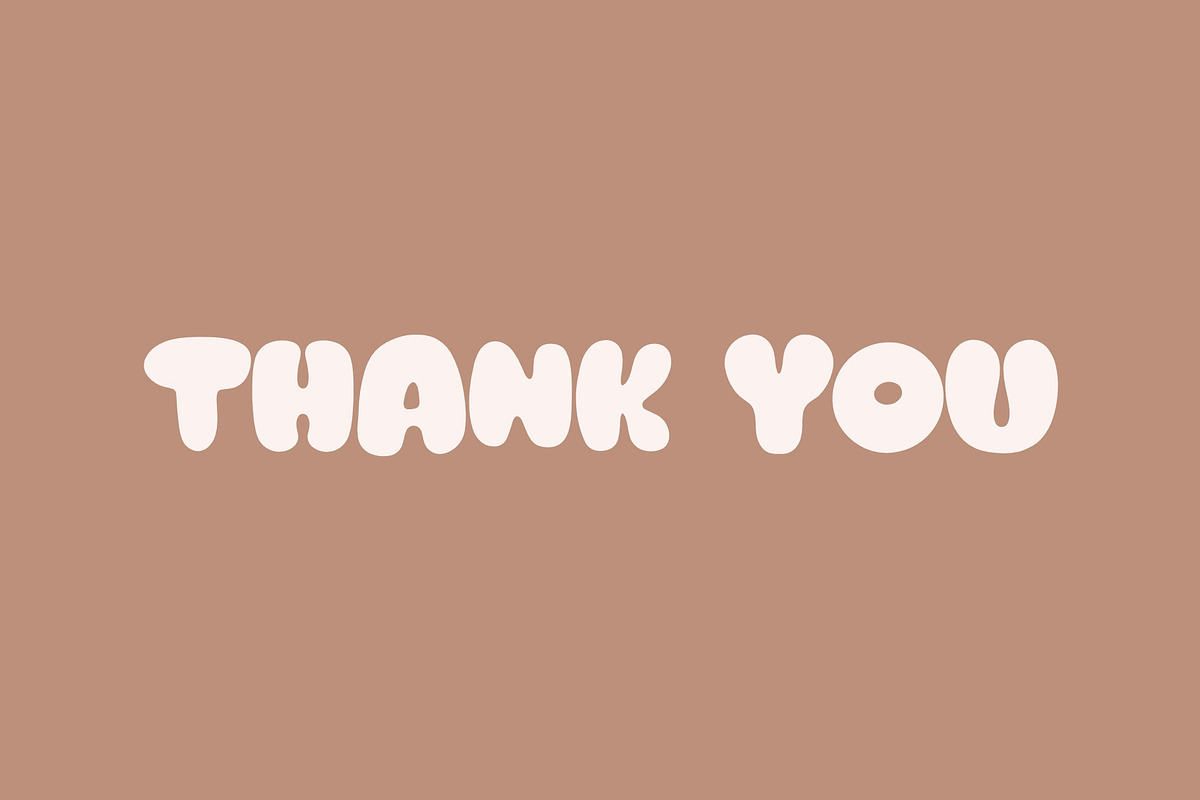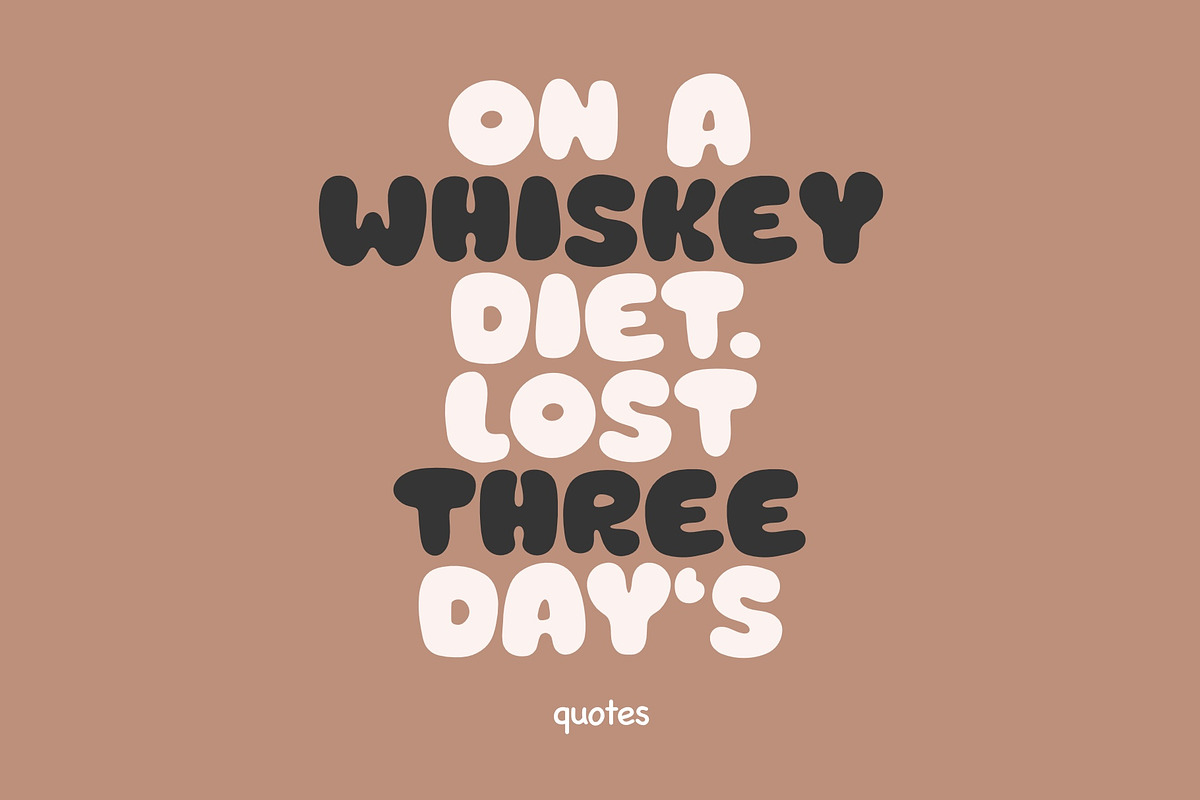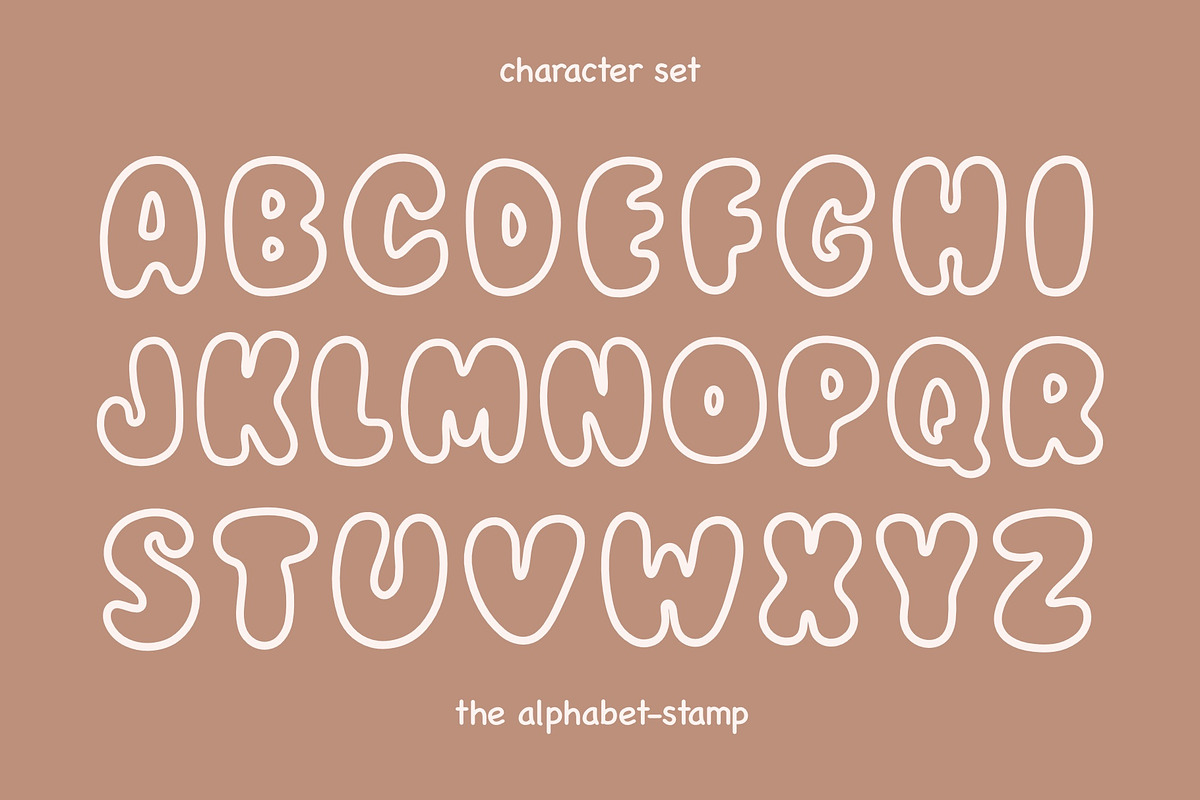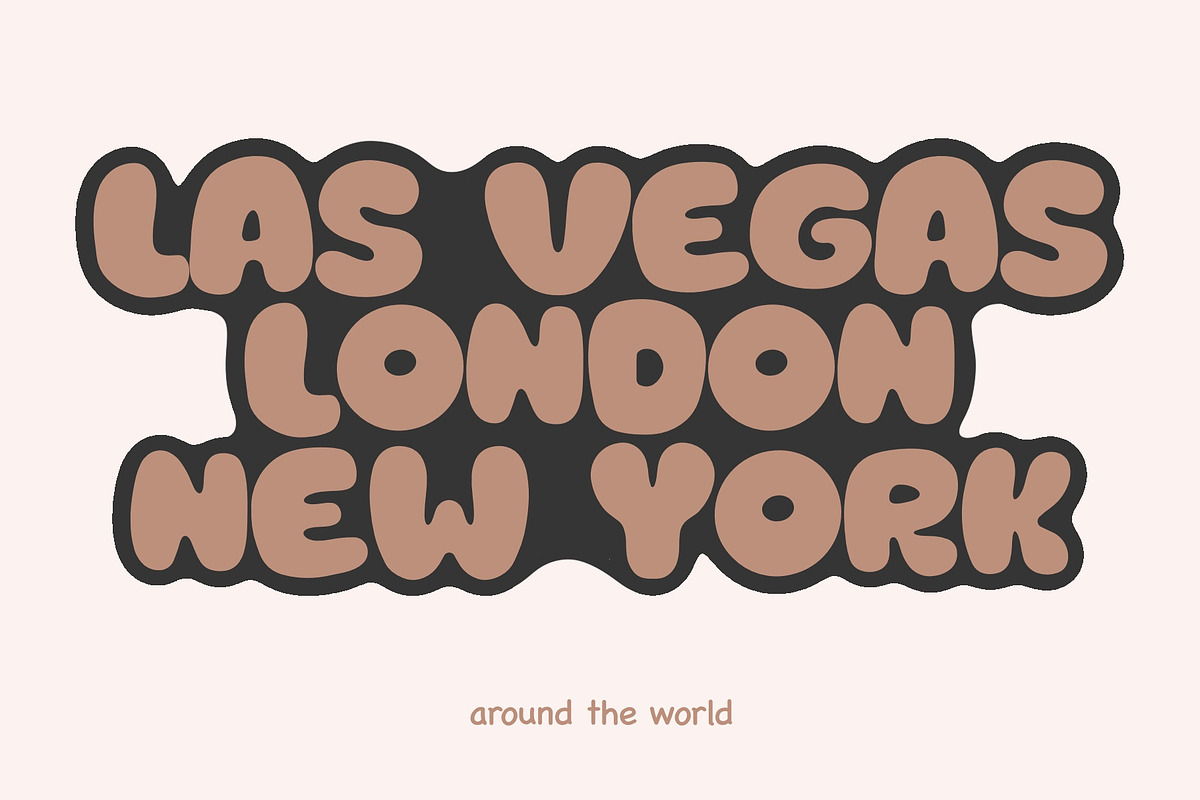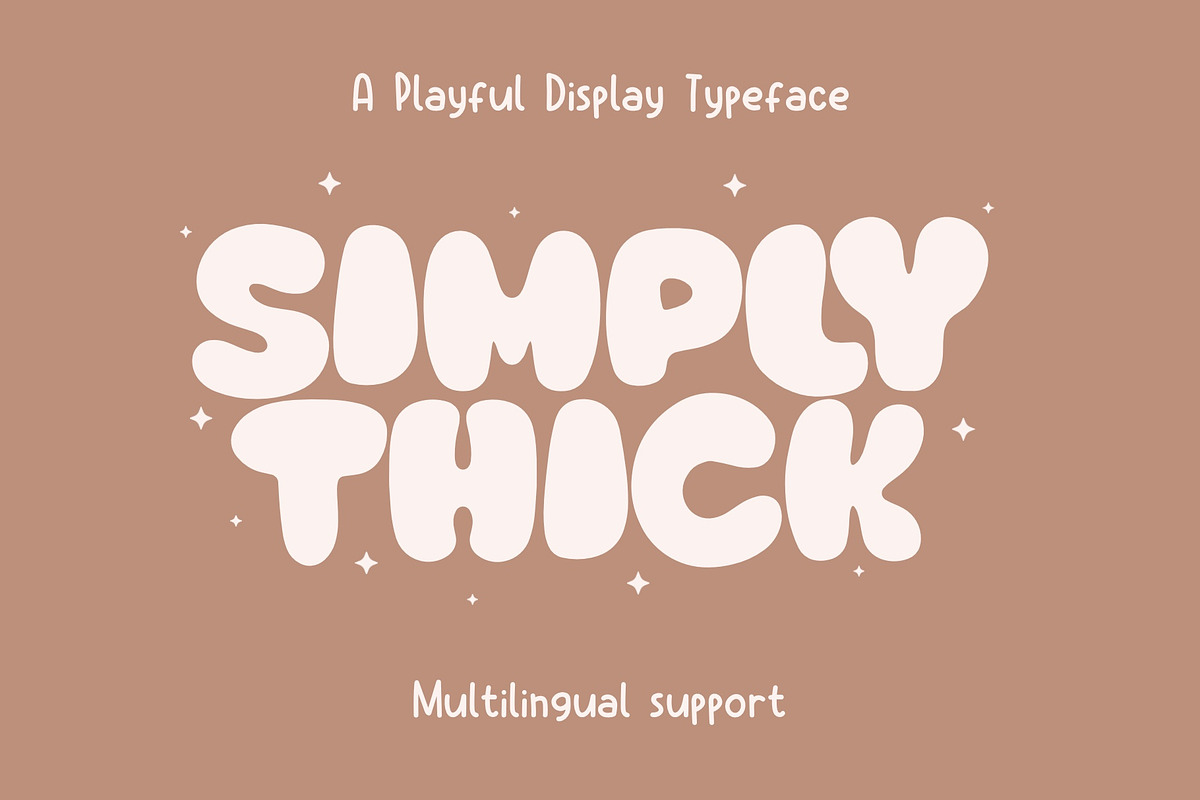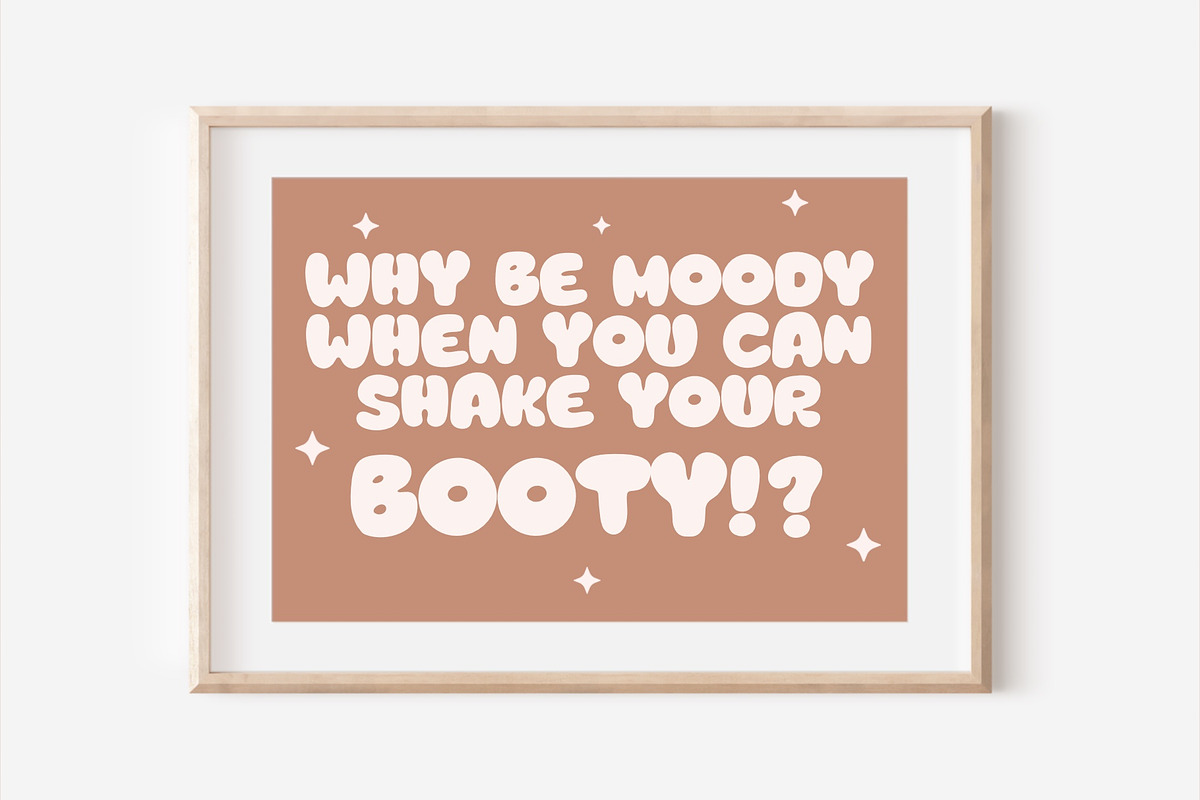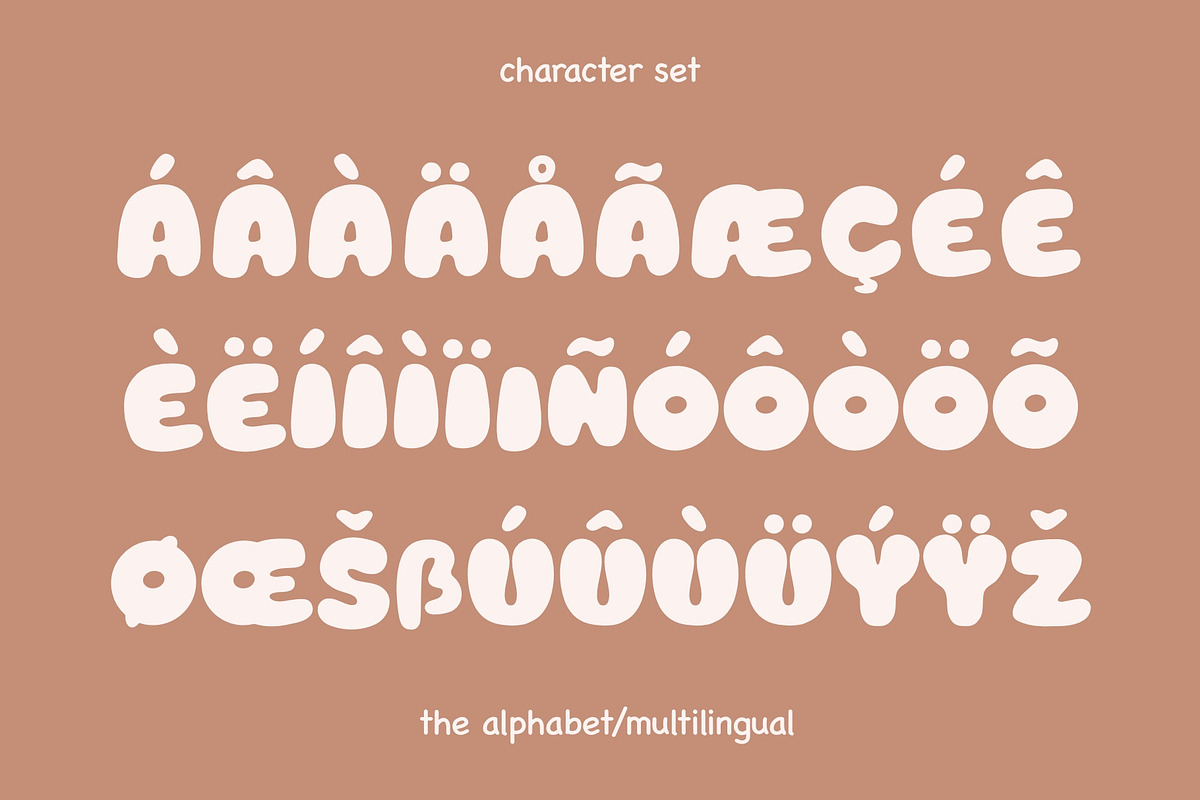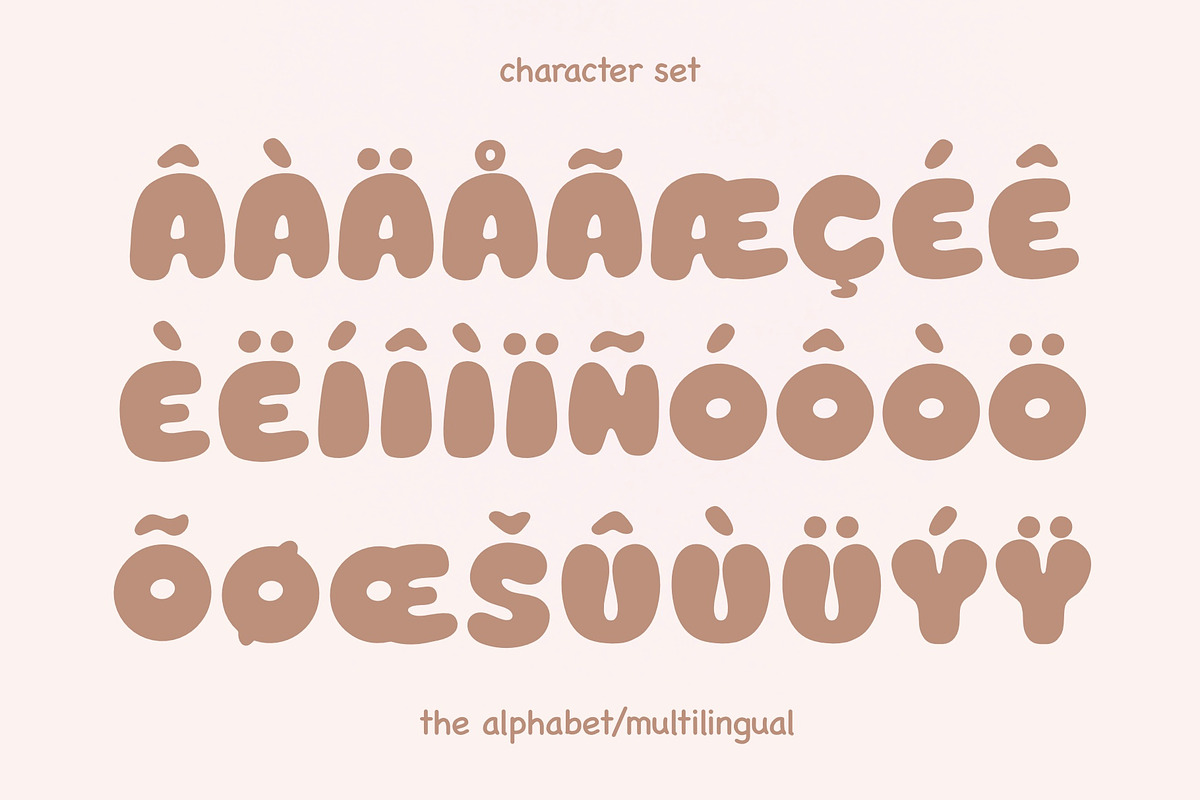
Simply Thick - Bubble Playful Font
Simply Thick is a whimsically designed sans-serif font that effortlessly combines a playful aesthetic with a bold and bubbly charm. The rounded letterforms exude a sense of friendliness and approachability, making it an ideal choice for projects seeking a lighthearted and modern vibe. The thick strokes provide a sense of solidity, ensuring visibility and impact in various design contexts. Whether used in headlines, branding, or creative endeavors, Simply Thick adds a touch of joviality to any text, making it stand out with its distinctive, bubbly personality.